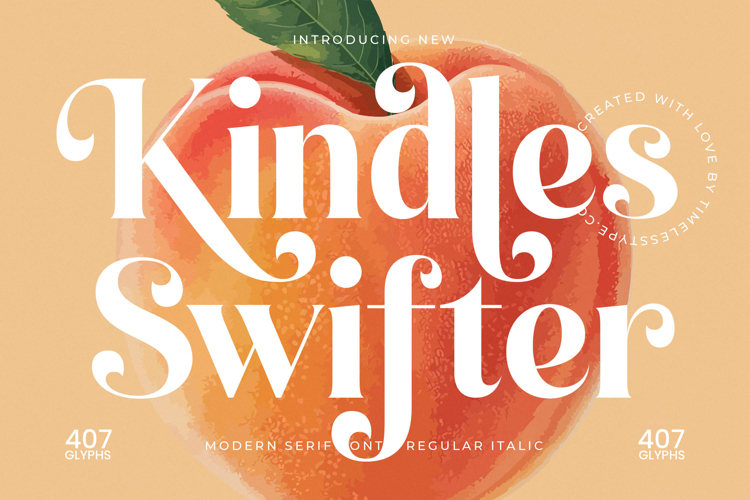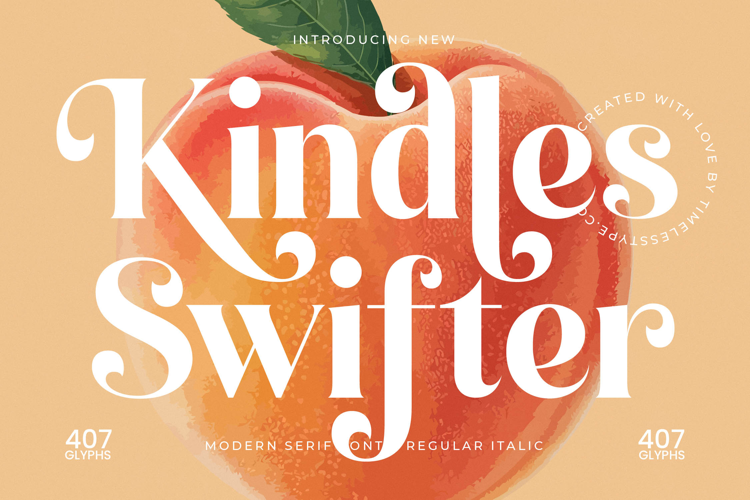
Kindles Swifter - Modern Serif Font
Elevate your designs with unparalleled elegance. Introducing Kindles Swifter - Modern Serif Font, a truly captivating typeface that fuses classic sophistication with contemporary flair. Its striking high-contrast strokes and gracefully flowing curves create an immediate sense of luxury and refinement, making a memorable visual statement. This font is meticulously crafted to deliver a powerful aesthetic impact, ensuring your message is conveyed with undeniable style.
Discover the exquisite craftsmanship in every curve. Kindles Swifter - Modern Serif Font boasts an exceptional balance of delicate thin lines and commanding thick strokes, lending it a unique visual rhythm. The elegant serifs and subtle decorative terminals on select characters provide an exclusive touch, making it an ideal choice for impactful headlines and sophisticated typography. It’s a versatile tool engineered for expressing premium quality and artistic expression.